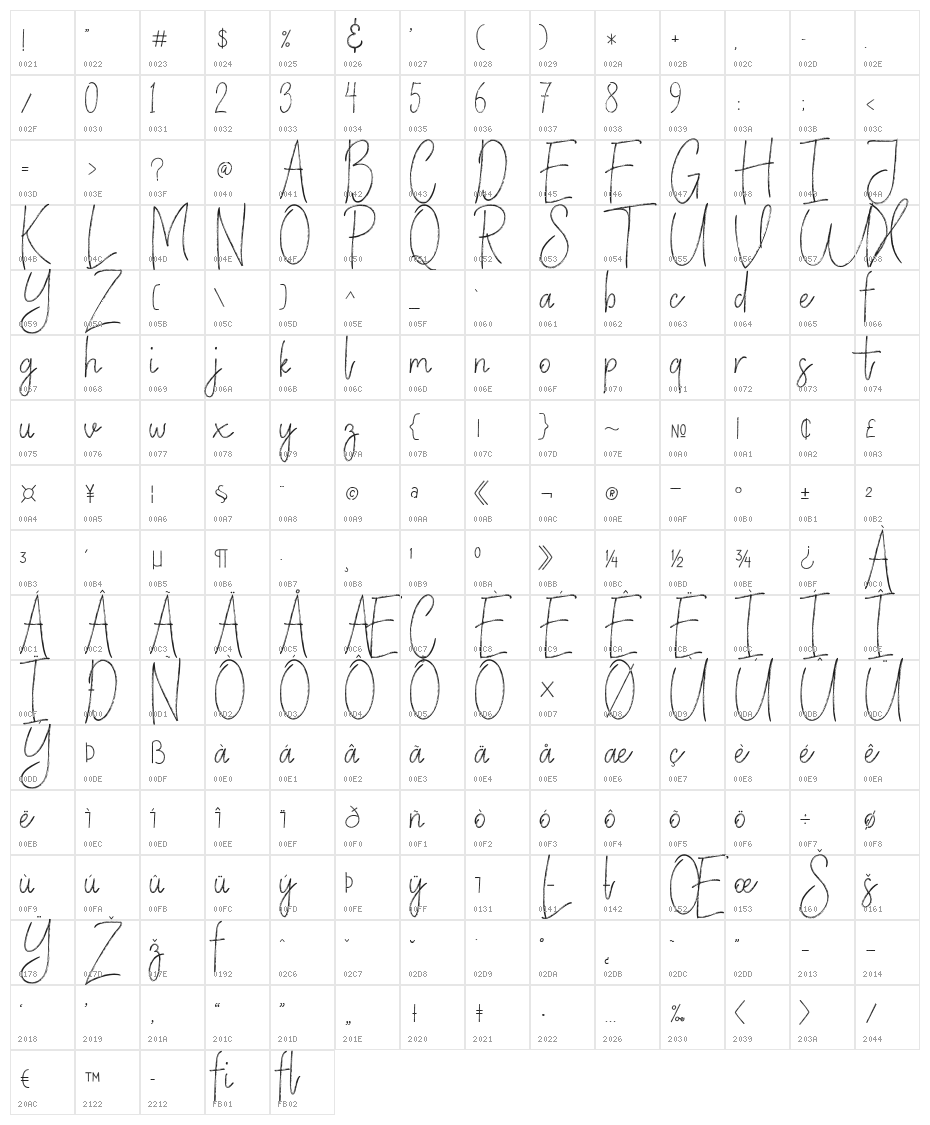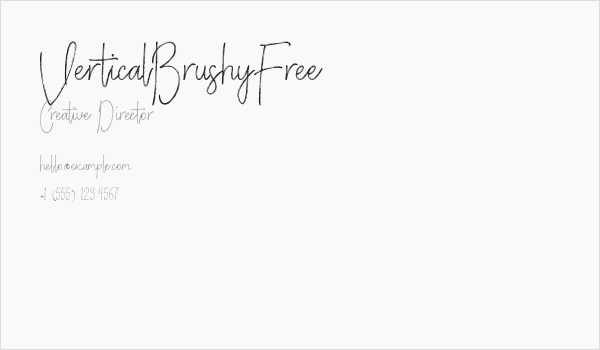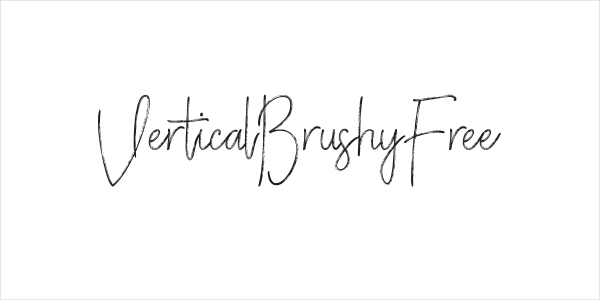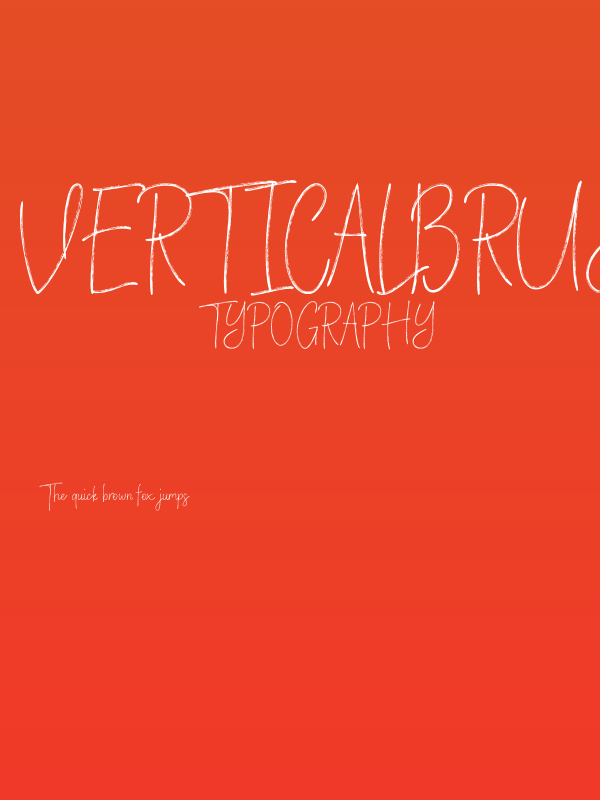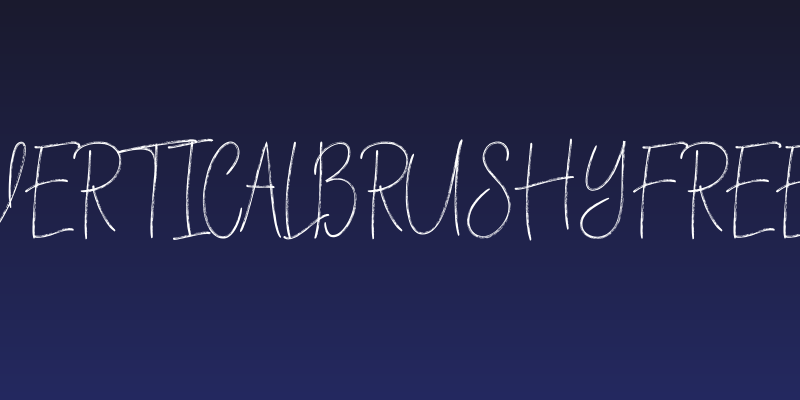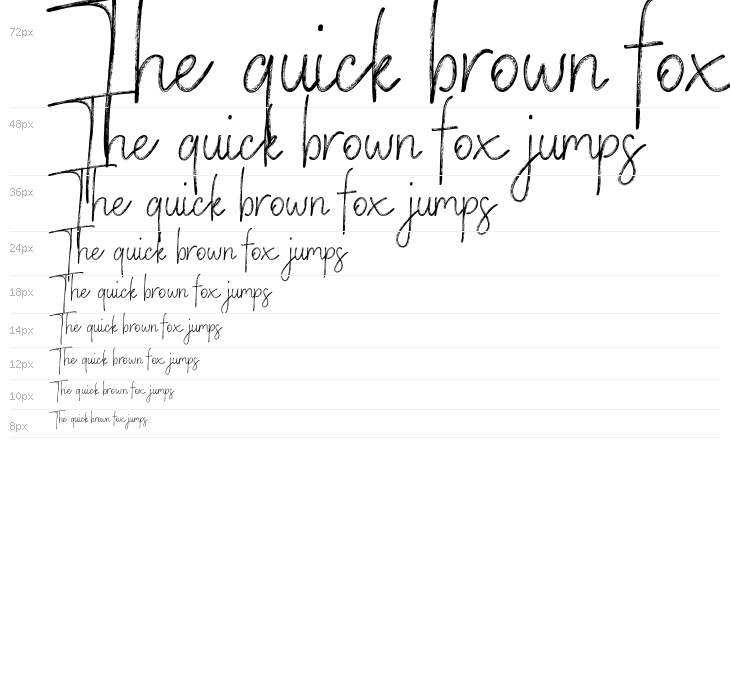
VerticalBrushyFree Font
VerticalBrushyFree Description
This font features a distinctive hand-drawn style with a brush-like texture that gives it a dynamic and artistic appearance. The uppercase letters are tall and slender, while the lowercase letters maintain a consistent flow, adding a sense of movement and energy. The numbers are clear and legible, with a slightly elongated form that complements the overall design. Special characters are creatively integrated, maintaining the font's unique aesthetic. The uneven stroke thickness and slight irregularities in the letterforms contribute to its organic and informal feel, making it ideal for projects that require a personal touch.
| Overall Style | Artistic |
| Proposed Projects | Ideal for creative projects such as posters, invitations, branding, and artistic designs. |